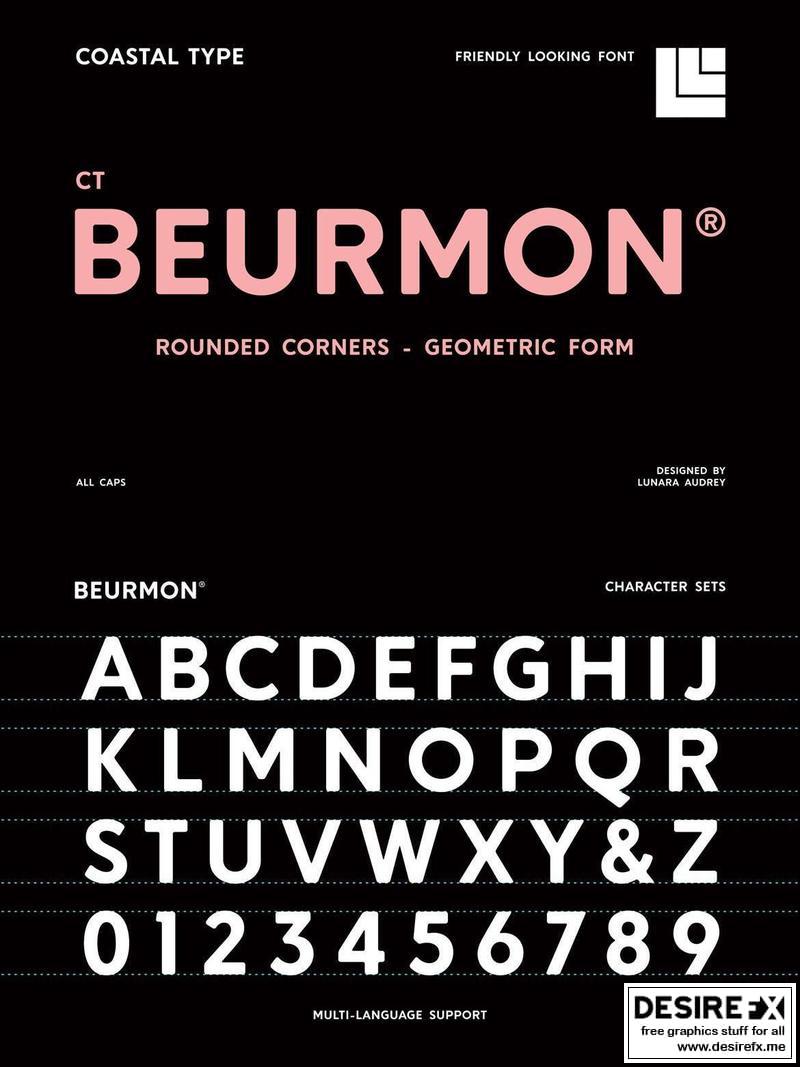
Beurmon YK5BV84
Beurmon is Modern Sans Serif with a Geometric Touch & Rounded Edges
- Uppercase Only
- Punctuation & Number
- Multilingual Support ÀÁÂÃÄÅÆÇÈÉÊËÌÍÎÏÐÑÒÓÔÕÖØÙÚÛÜÝ